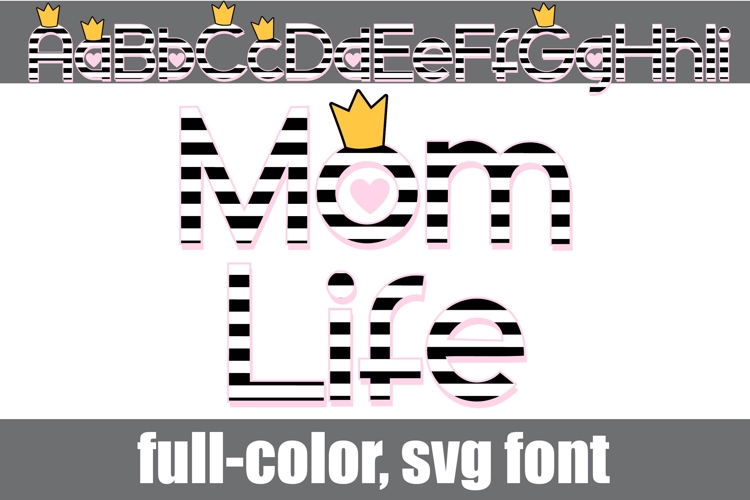
Mom Life Color Font
This full-color, font is a sans serif wearing stripes, hearts, and crowns. There is an alt case of additional colors of each letter that you can access through your system's character map.